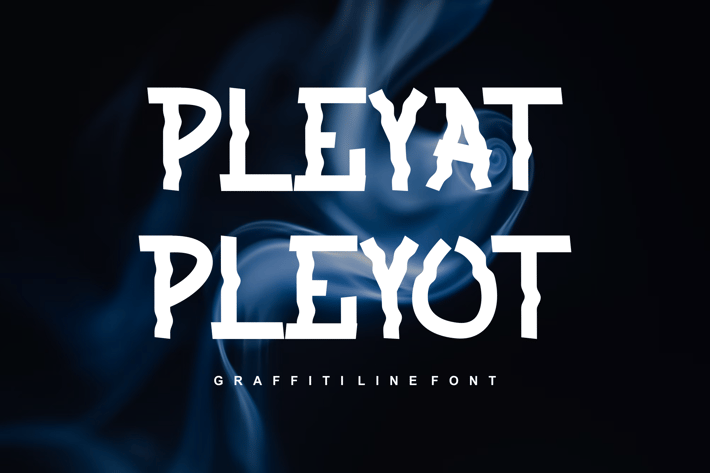
Pleyat Pleyot Fonts
Introducing our new product Roghan Pleyat Pleyot Fonts modern fonts.
Roghan Adventure Fonts modern font is a bold and authentic display font. The font is suitable for any branding project like.